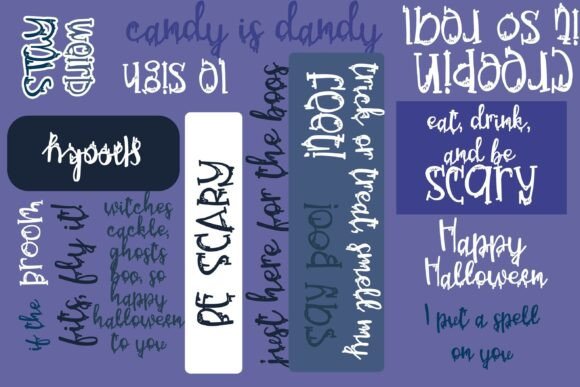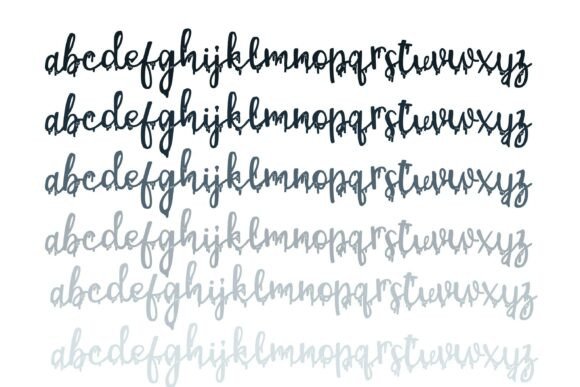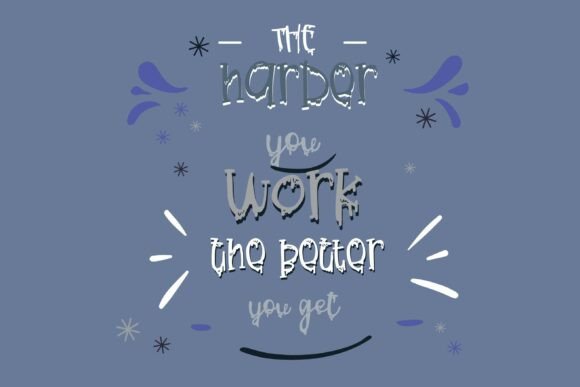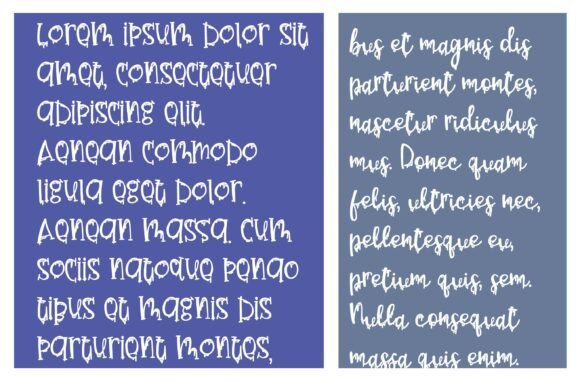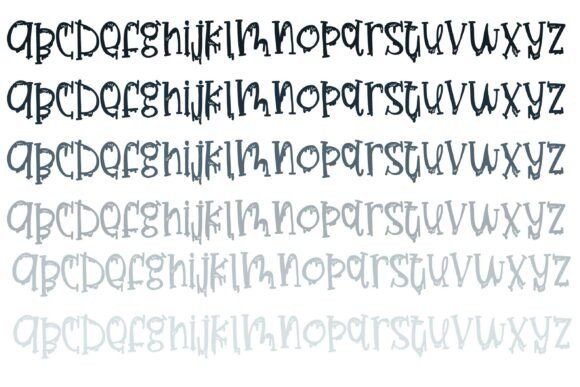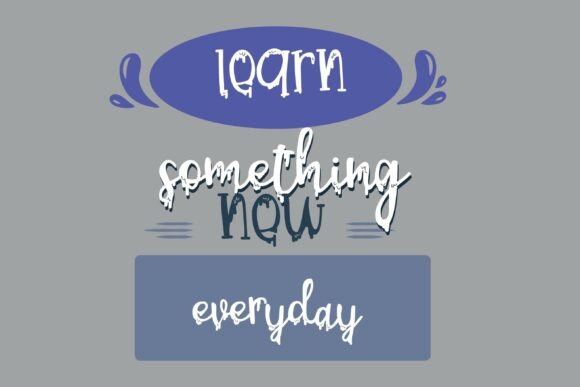
Introduction to Froogfears Duo Font
As a designer, there’s nothing quite like the thrill of bringing a creative project to life. Whether it’s a haunted Halloween invitation or a spooky social media post, the right font can make all the difference. And that’s exactly where the Froogfears Duo Font comes in – a high-quality, hand-crafted duo of fonts that’s sure to add a touch of playful fright to your next design.
With its unique combination of a bold, quirky print style and a coordinating script, this font duo is the perfect design resource for anyone looking to add a little extra creativity to their project. And the best part? It’s available for free download, making it a valuable addition to any designer’s toolkit.
But what really sets the Froogfears Duo Font apart is its transparent background, which makes it easy to use on any design without worrying about background interference. Whether you’re a seasoned pro or just starting out, this font is a must-have for anyone looking to take their creative projects to the next level.
Froogfears Duo Font
- High-Quality Design: Froogfears Duo Font offers a high-quality, professional design perfect for creative projects.
- Transparent Background: This font features a transparent background, allowing for seamless integration with any design resource.
- Large Character Set: The font includes a large character set, including uppercase and lowercase letters, numbers, and punctuation marks.
- High Resolution: Designed at 300 DPI, the Froogfears Duo Font is ideal for printing and other high-resolution applications.
- Unique Characteristics: The font’s unique blend of modern and vintage elements makes it an excellent choice for designers looking to add a touch of creativity to their projects.
Honest Review: Froogfears Duo Font
One of the standout features of Froogfears Duo Font is its high quality, transparent background. This makes it perfect for use in designs where you want to add a touch of elegance without the distraction of a solid background.
- High quality transparent background is perfect for adding a touch of sophistication
- Great for use in creative projects such as logos, branding, and typography-based designs
- Only available in two weights, which may limit its use in certain design applications
- No extended character set, which may cause issues with languages that require additional characters
Overall, I’m impressed with Froogfears Duo Font. While it may have some limitations, its high quality and transparent background make it a valuable resource for designers. If you’re looking for a free font to add some flair to your creative project, Froogfears Duo Font is definitely worth a try.
Tips for Getting the Most Out of Froogfears Duo Font
For a high-quality design, pair the Froogfears Duo Font with a transparent background and a creative project concept. This will help the font stand out and create a visually appealing design. You can also experiment with different font sizes and colors to add depth to your design.
The Froogfears Duo Font is ideal for a variety of creative projects, including social media graphics, posters, and business cards. Its free download and high-quality design make it a valuable design resource for anyone working on a creative project.